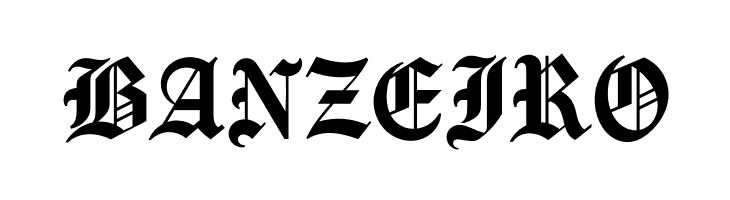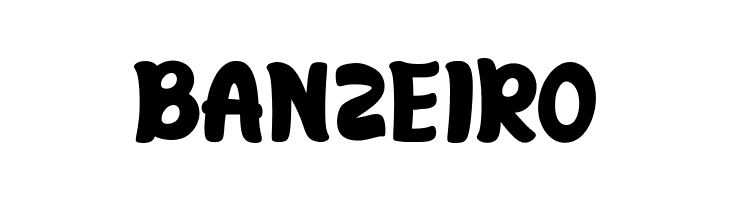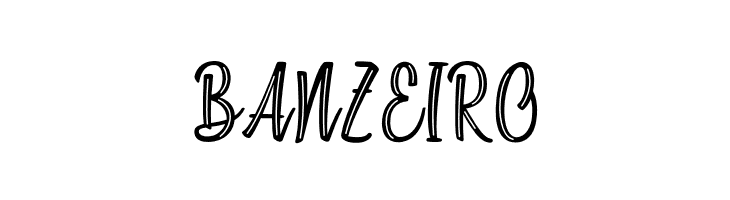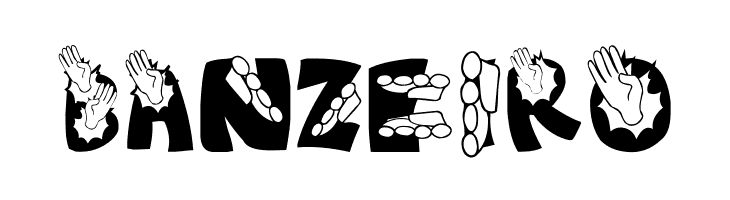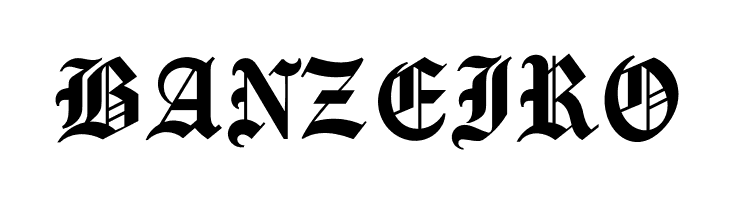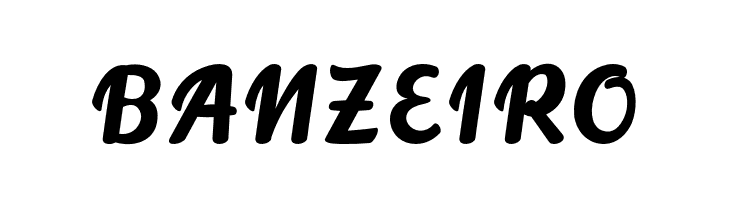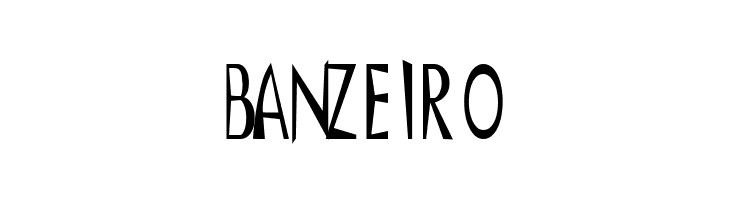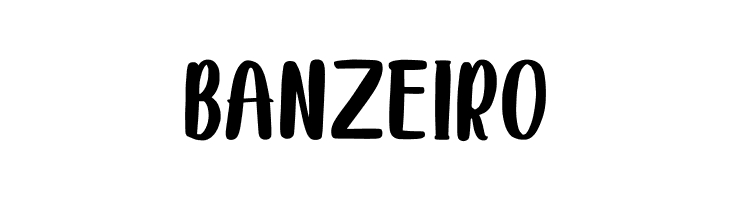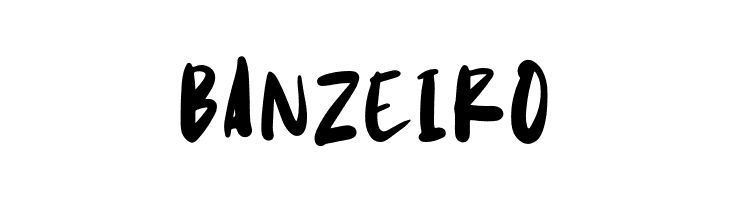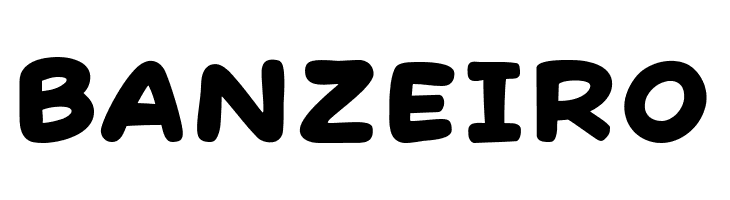
A playful, handwritten font with rounded, smooth letterforms.
A fluid and expressive calligraphy font inspired by traditional Chinese brush writing.
A decorative and artistic font with modern, flowing elements.
A bold, futuristic font with a geometric, digital aesthetic.
A futuristic, geometric font with shadowed outlines and a tech-inspired style.
A bold, geometric font with a futuristic, industrial style.
A decorative, tech-inspired font with circuit-like patterns.
A bold, chiseled font with a three-dimensional effect, perfect for impactful designs.
A bold, playful handwritten font with thick, rounded strokes.
A playful, bold font with rounded edges and a bubbly appearance.
A bold, geometric font with a stacked, three-dimensional appearance.
A bold, playful script font with a handwritten feel.
A bold, cursive font with smooth, flowing lines and a dynamic appearance.
A playful, bold font with thick, rounded strokes and a whimsical touch.
A playful, hand-drawn font with bold, irregular characters.
A playful, bold handwritten font with rounded edges and thick strokes.
A playful, handwritten font with bold strokes and a lively, dynamic style.
A playful, bold font with rounded, thick strokes and a friendly appearance.
A playful, hand-drawn font with a bold, rounded style.
A playful, handwritten script font with bold uppercase and fluid lowercase letters.
A bold, modern font with a futuristic and geometric design.
A bold, flowing script font with dynamic and elegant characteristics.
A traditional Blackletter font with intricate, angular designs and strong vertical emphasis.
An elegant script font with intricate swashes and flowing letterforms.